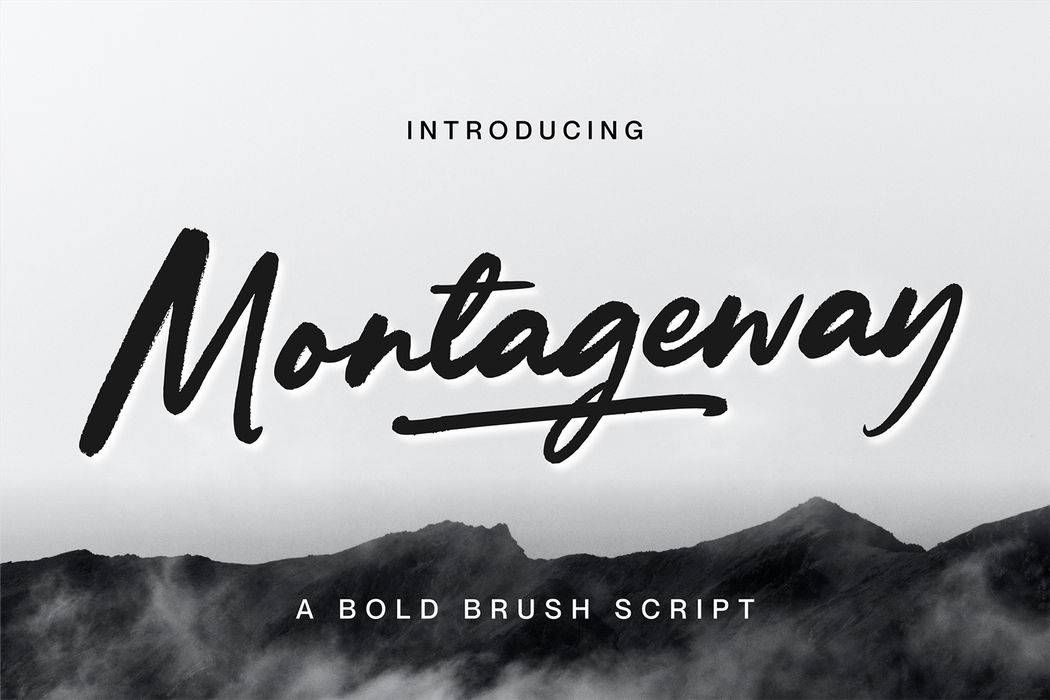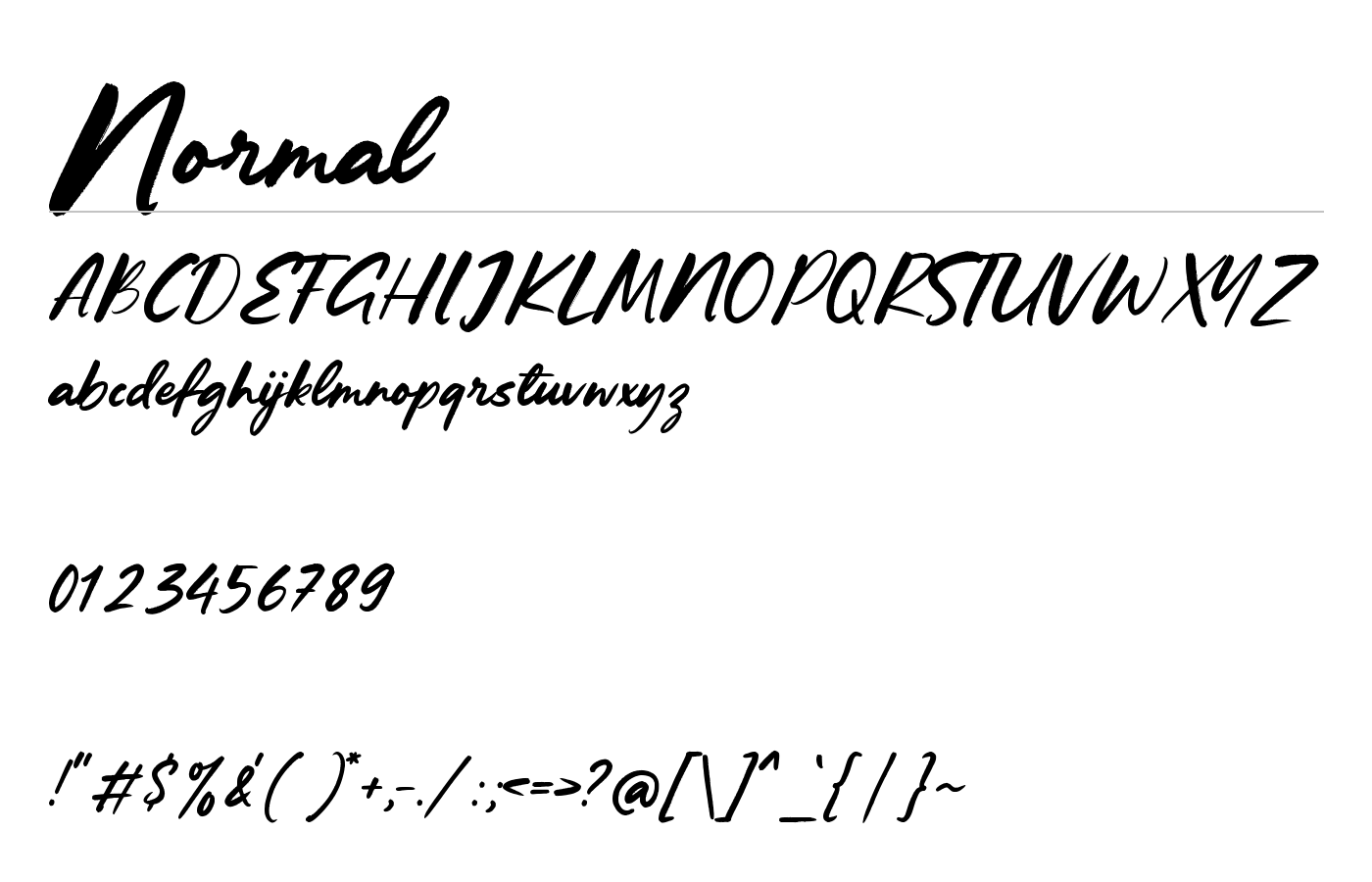
Montageway is an expressive script font with a natural, hand-painted look, featuring smooth, flowing strokes and moderate contrast that add a sense of energy and personality. Its slightly slanted, casual letterforms and lively details make it perfect for creative branding, invitations, and packaging where a warm, personal touch is desired. This font works well in headlines and logos, bringing an approachable yet stylish flair to designs.
Montageway Font
About Montageway Font